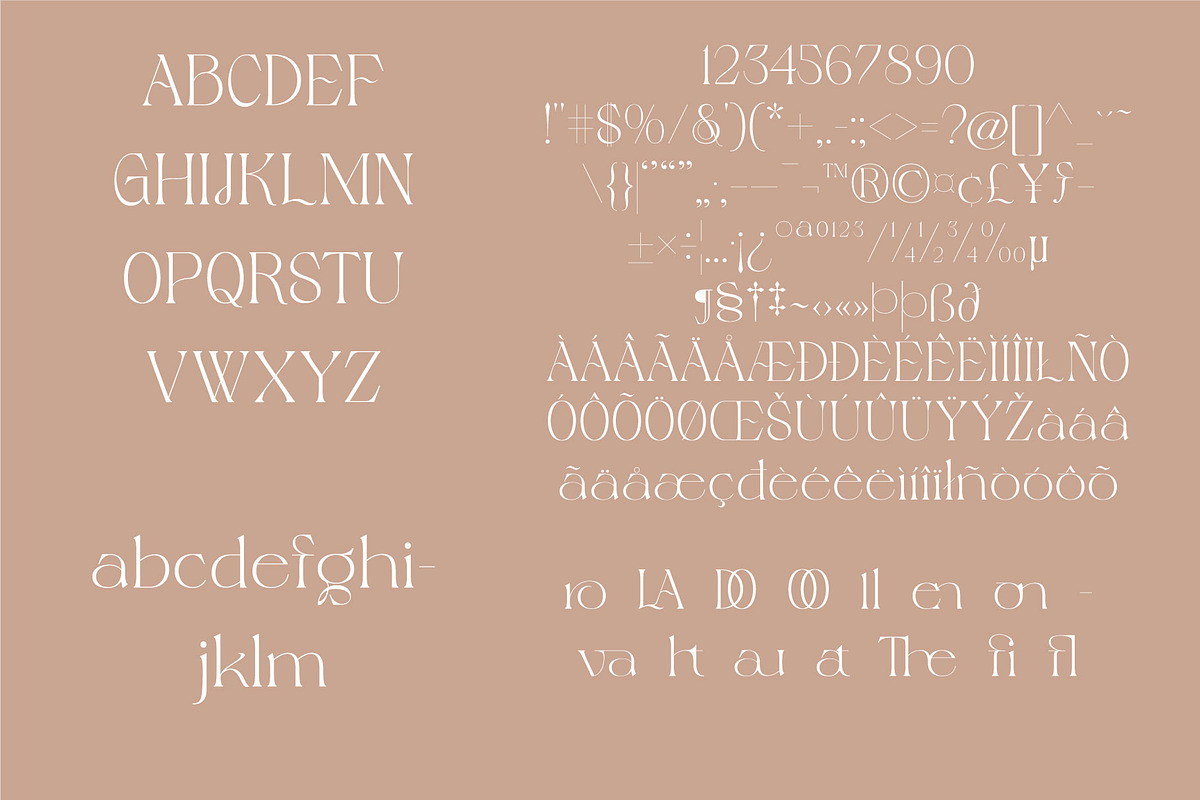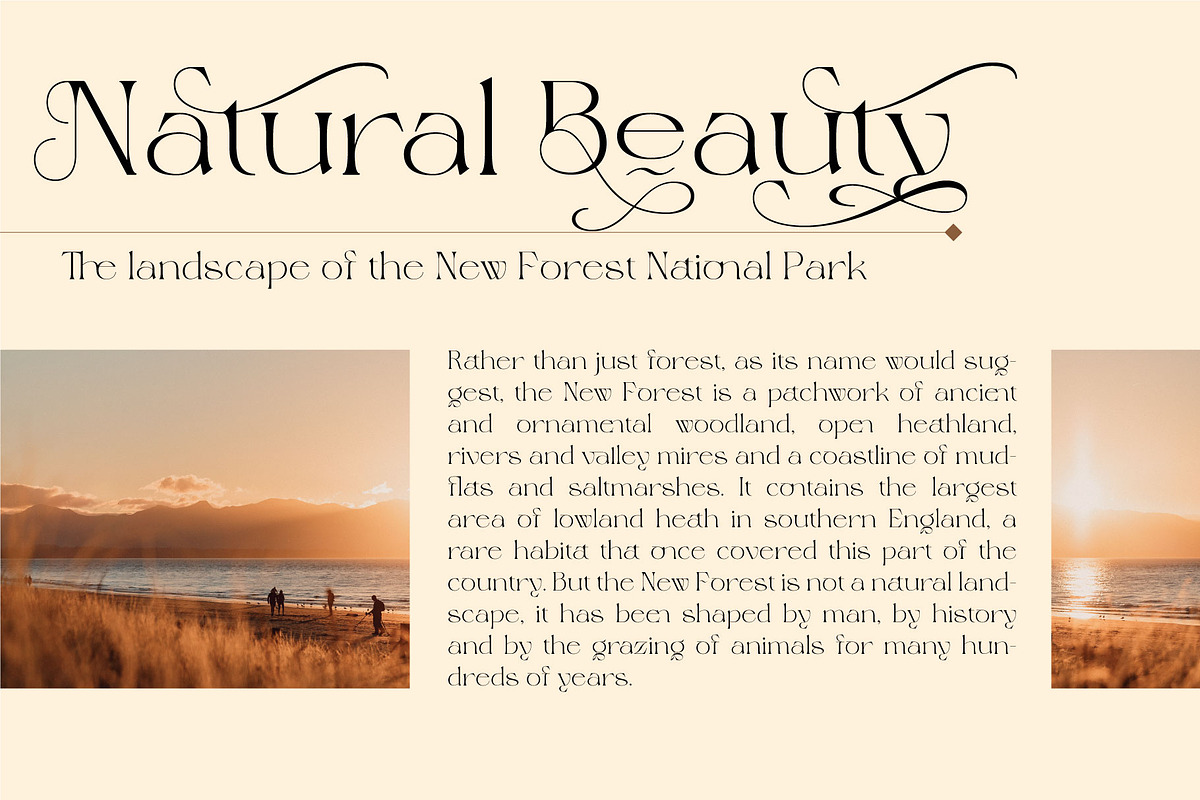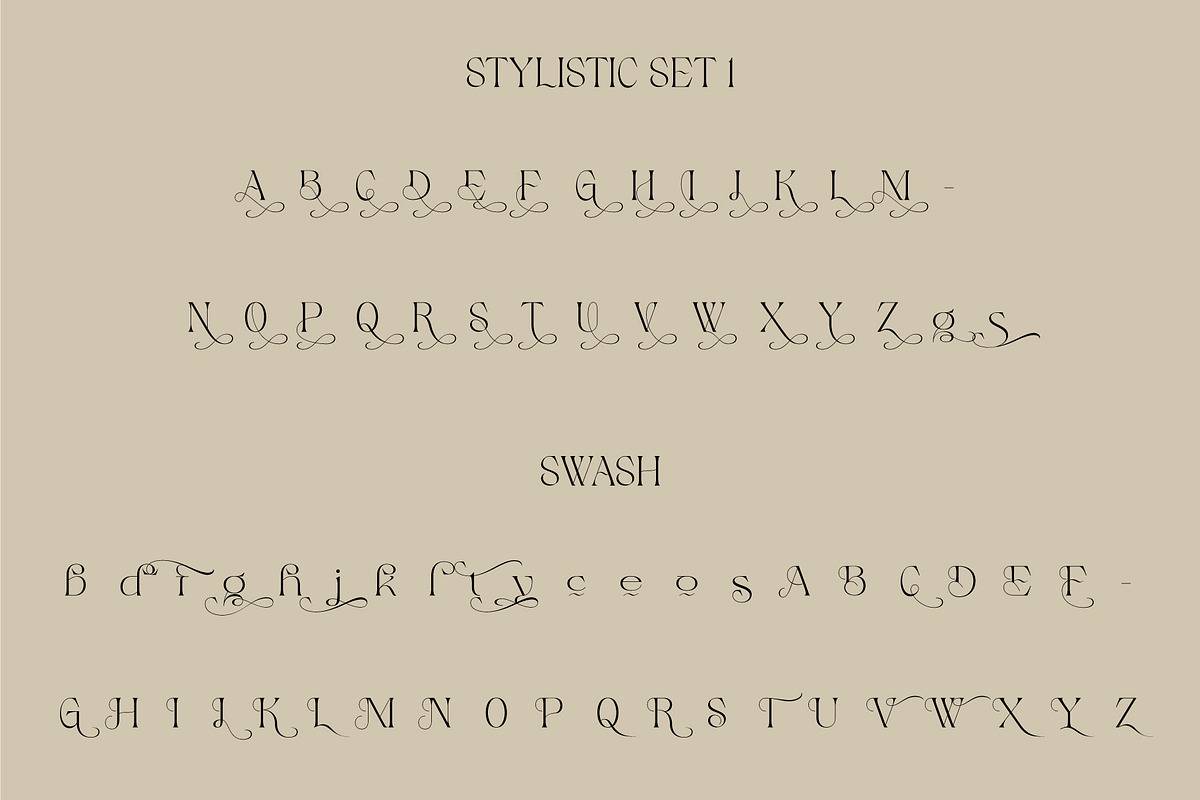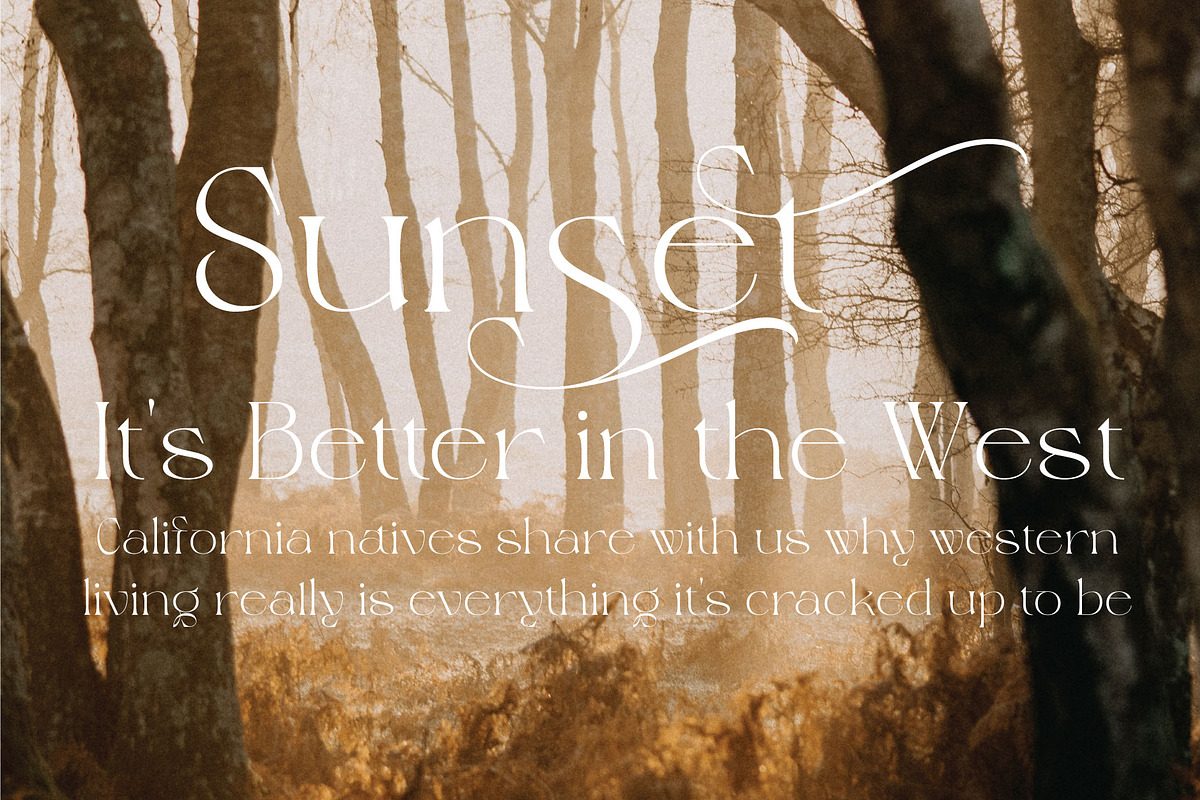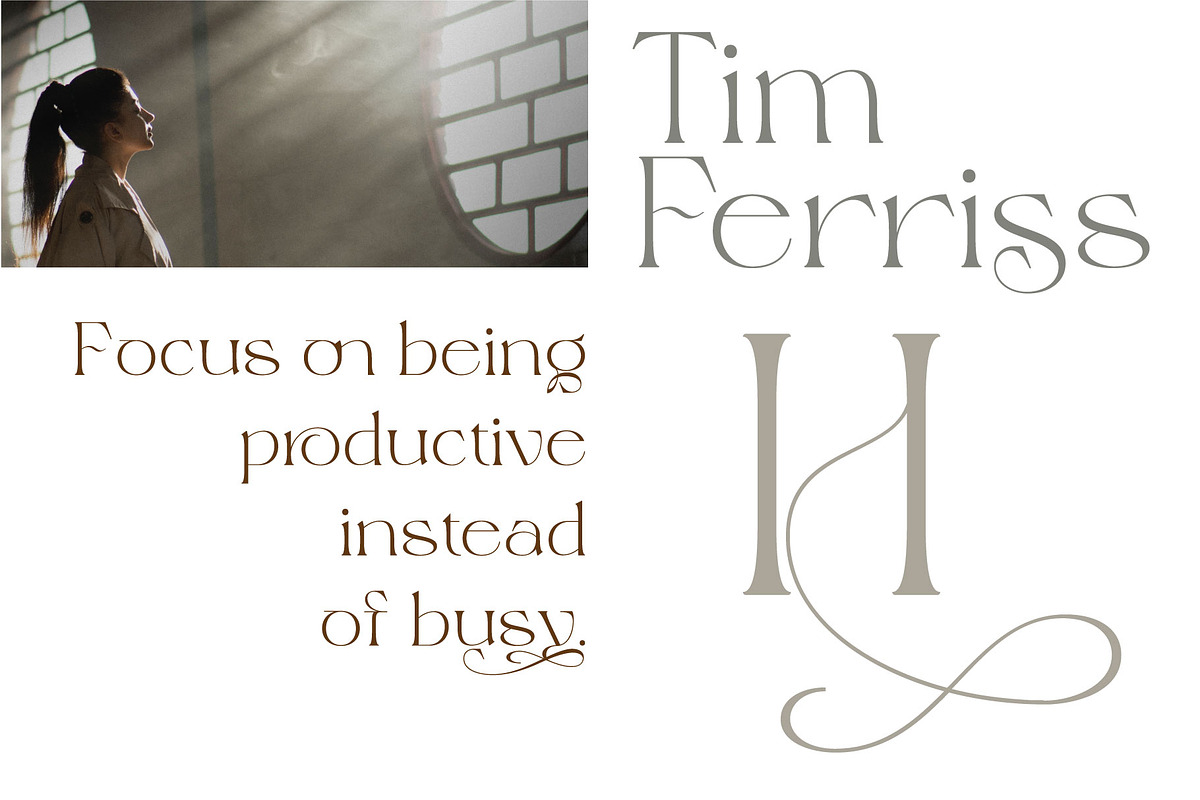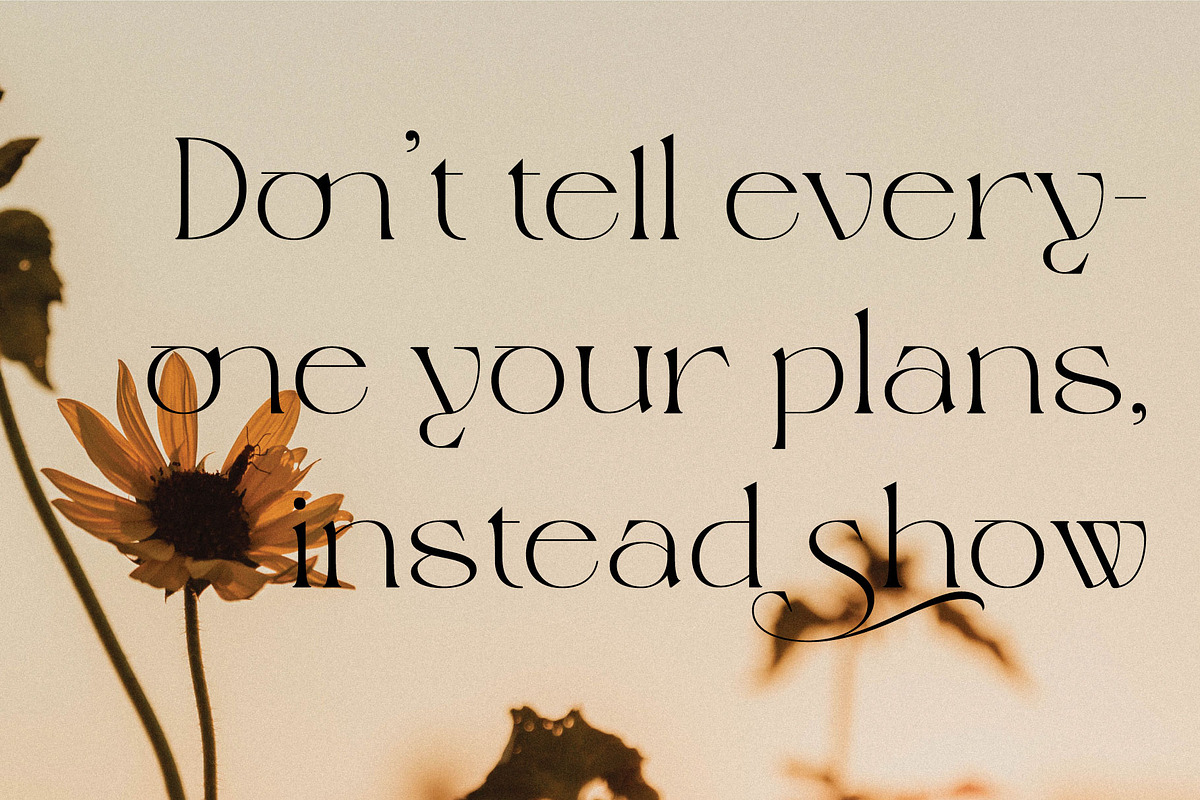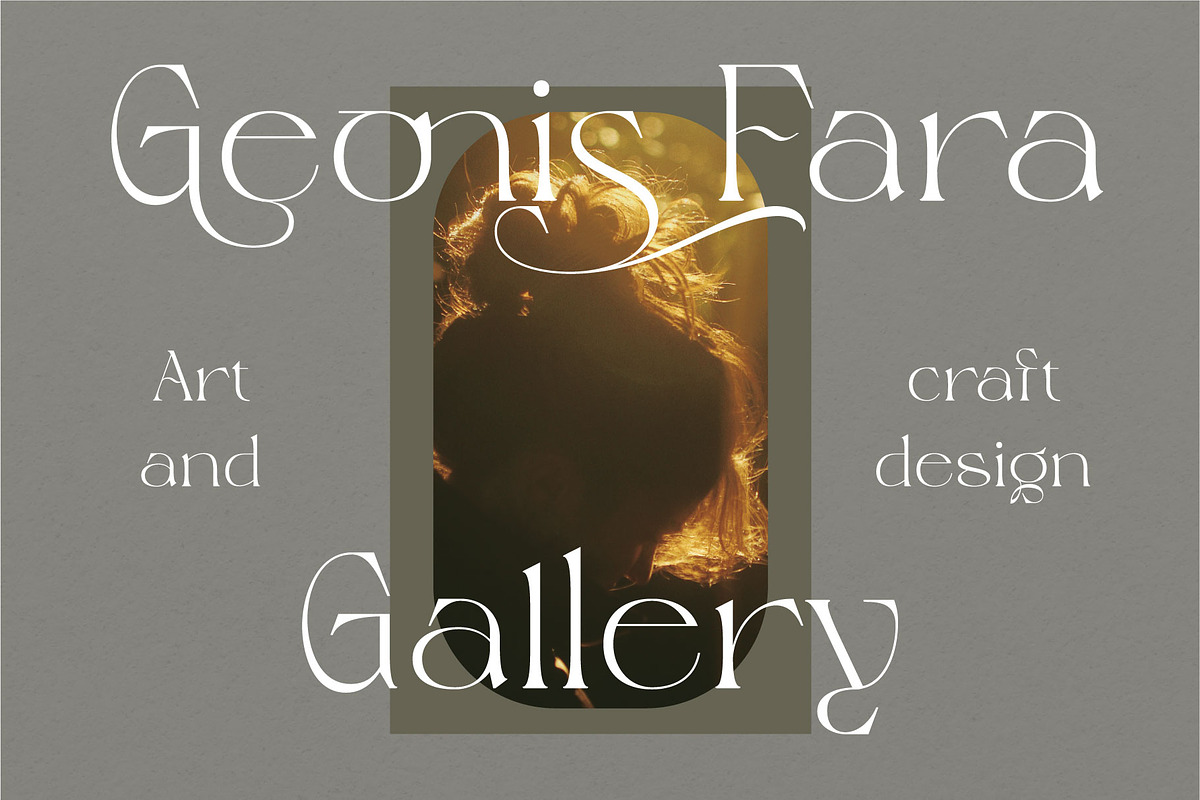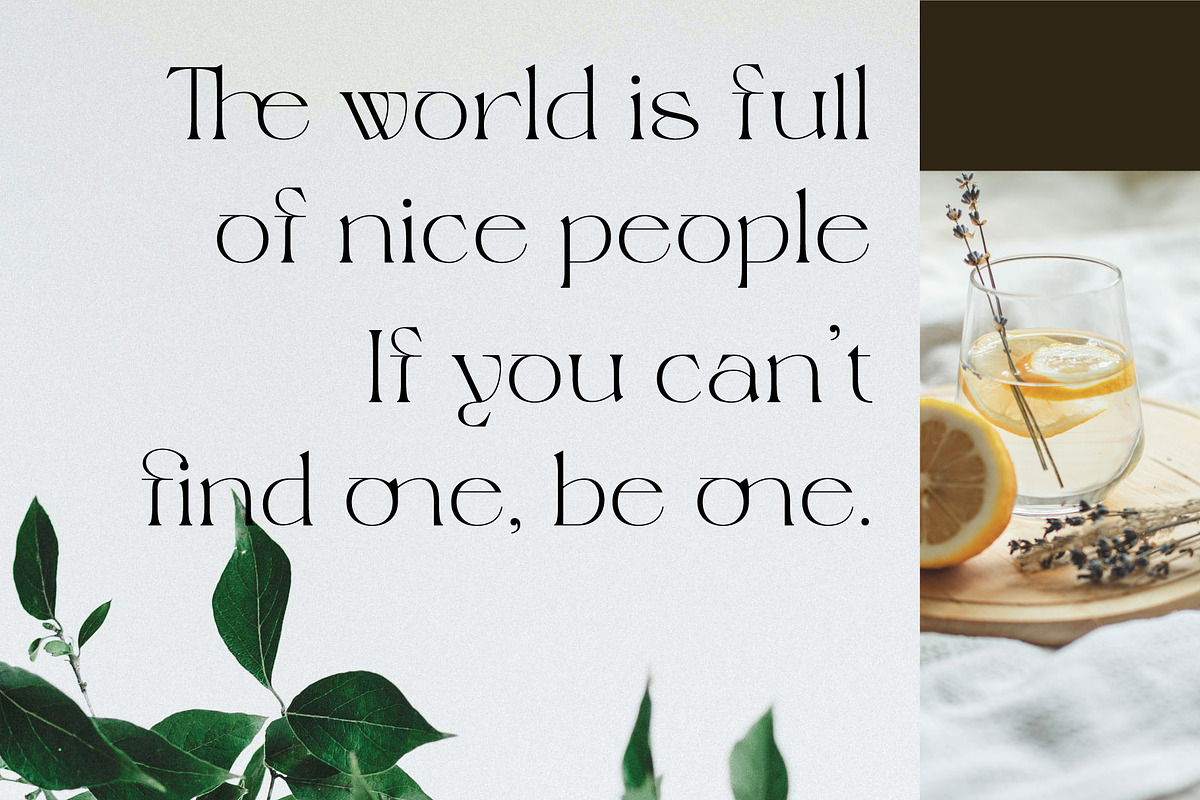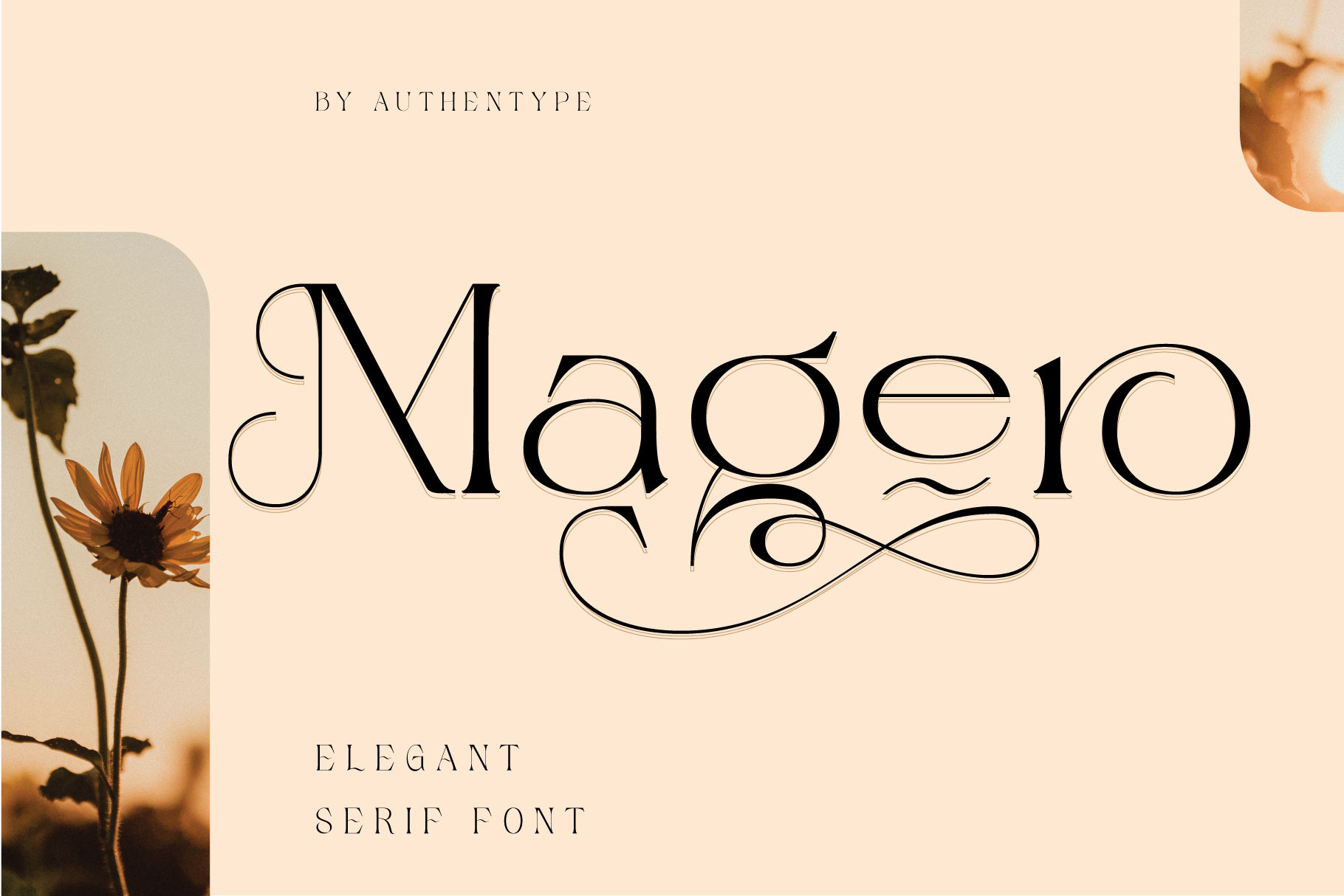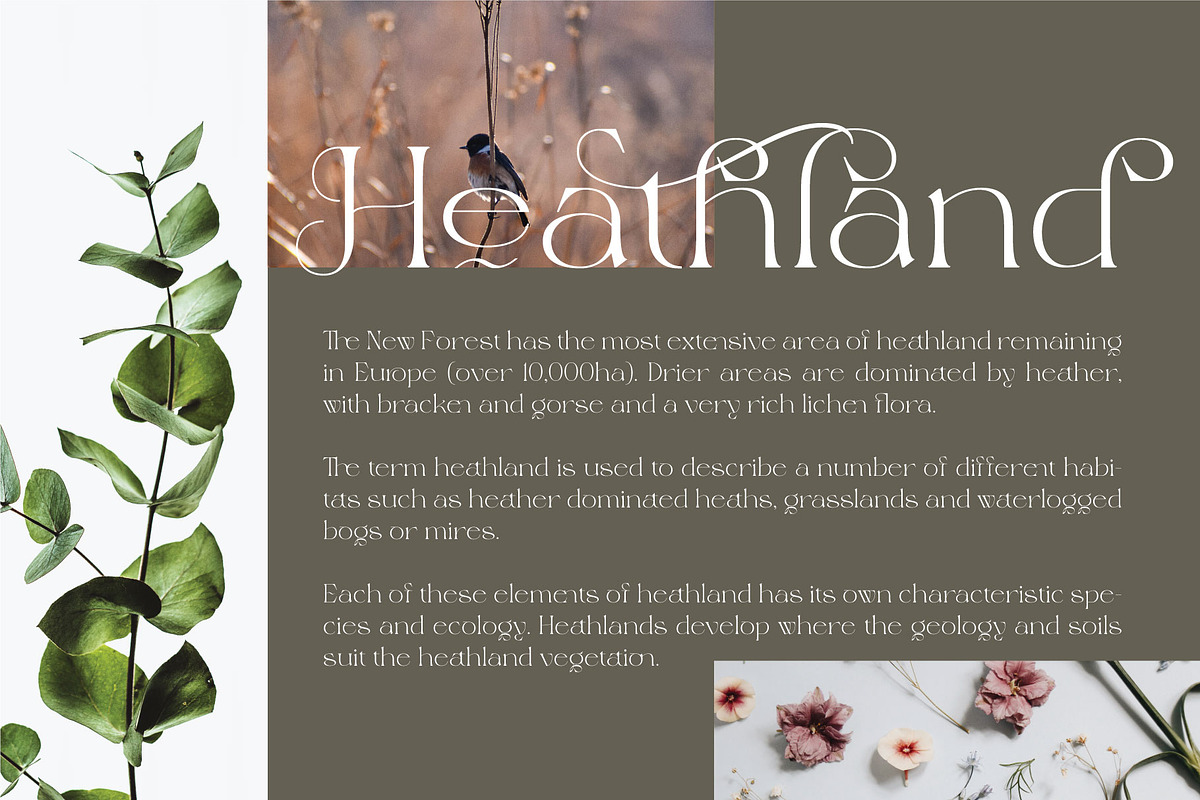
Magero Elegant Serif Font
Magero Elegant Serif Font with discretionary ligatures that give each word a different shape. Also contains a swash with an elegant, contrasting, and clean, perfect for logo designs, posters, and various types of promotional media.
Magero Elegant Serif Font (OTF/TTF/WOF) | Standard glyphs uppercase and lowercase letters | Numerals, a large range of punctuation and ligatures. | Swashes, Stylistic Set | Multilingual | Works on PC & Mac.